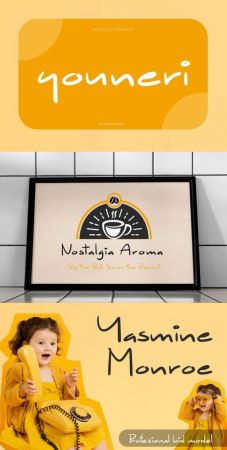
CF - Youneri Font 93303908
Youneri is a delightful handwritten font that radiates warmth and charm. Its playful strokes and whimsical curves evoke feelings of affection and joy, making it perfect for greeting cards, invitations, and other creative projects that aim to spread love and happiness.